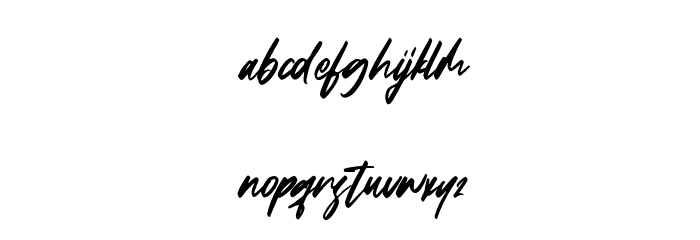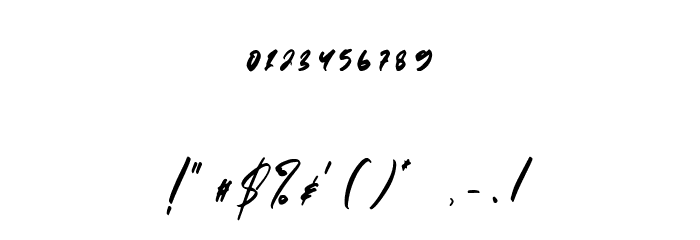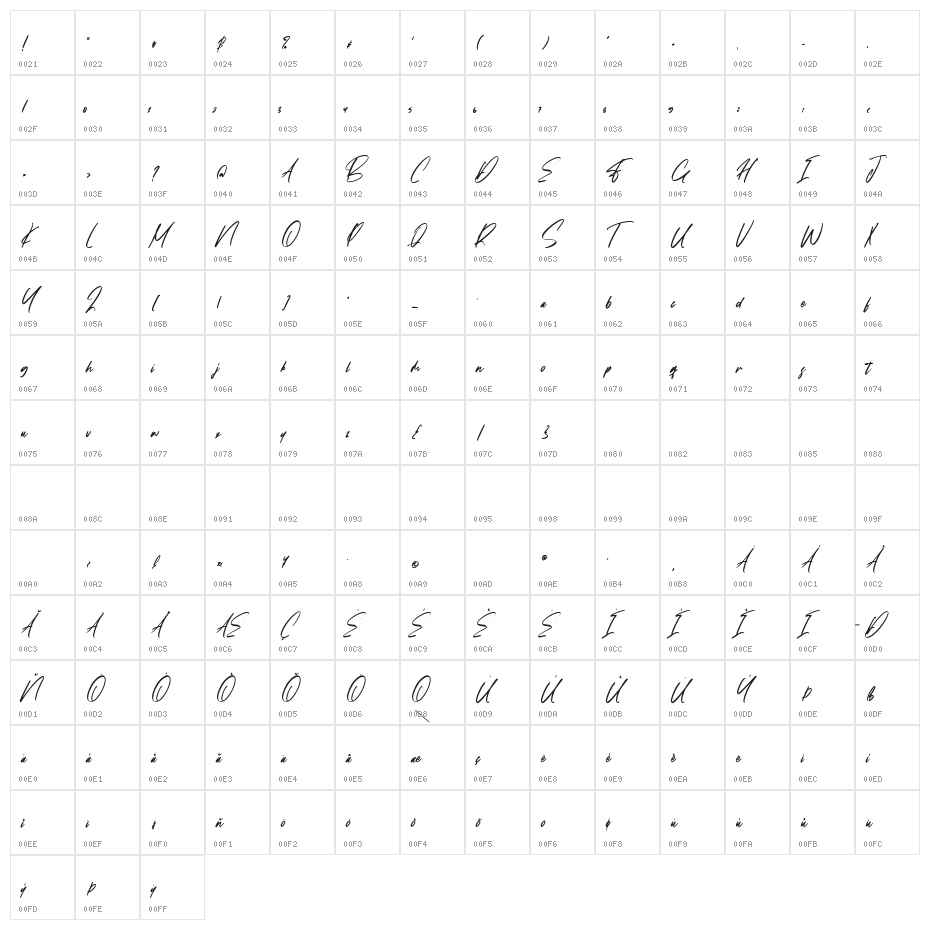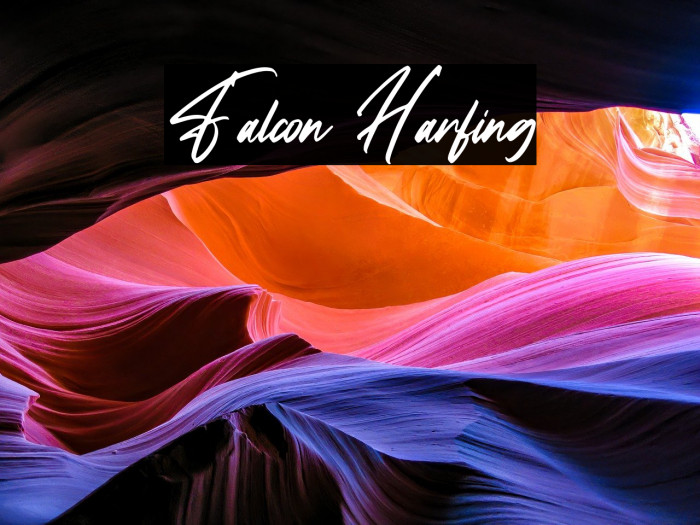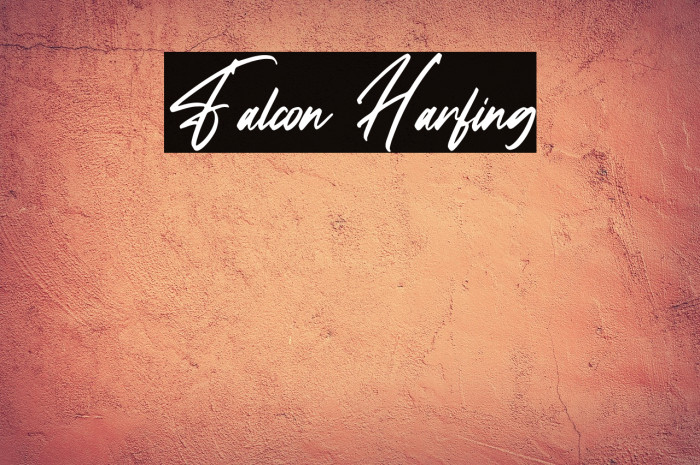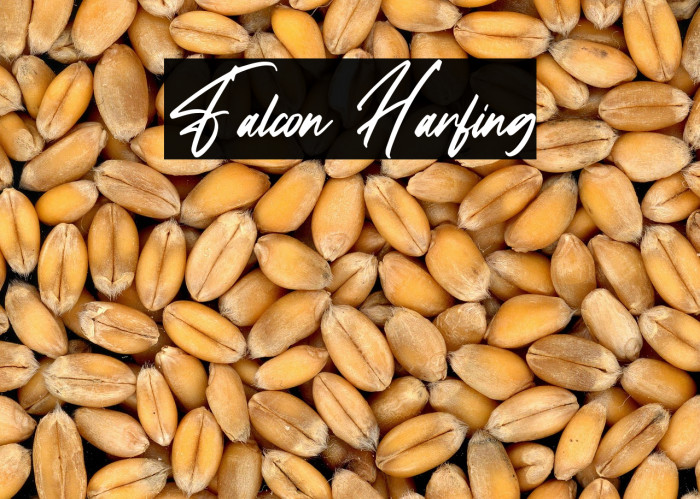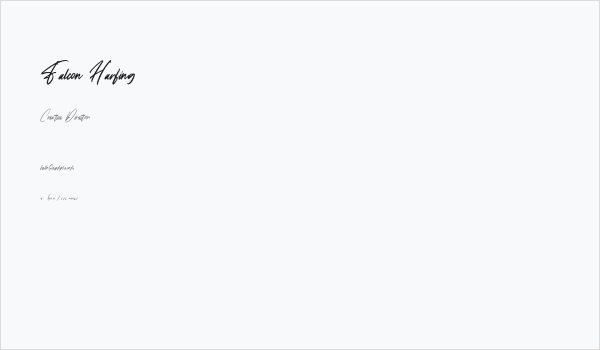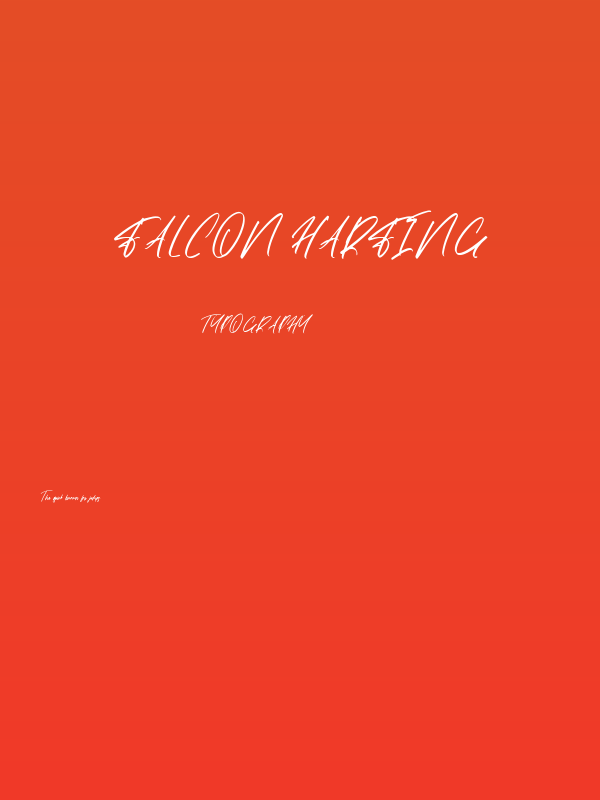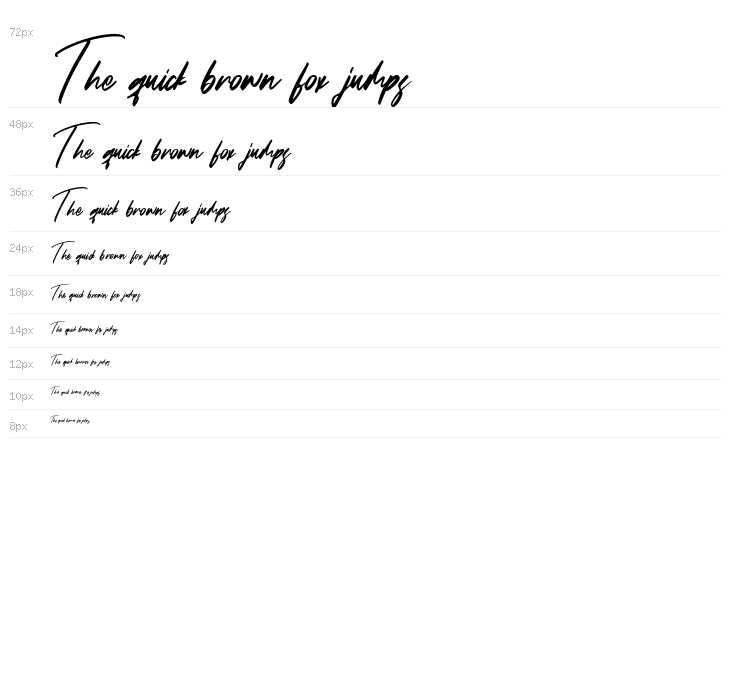
Falcon Harfing Font
This font exhibits a dynamic and fluid script style, characterized by its elegant and flowing letterforms. The strokes are smooth and connected, giving it a handwritten appearance that is both sophisticated and casual. The uppercase letters are bold and slightly slanted, while the lowercase letters maintain a consistent flow, enhancing readability. The numerals and special characters are crafted with the same attention to detail, ensuring a cohesive look throughout. This font's unique style makes it suitable for projects that require a personal touch, such as invitations, greeting cards, or branding materials.
A fluid and elegant script font with a handwritten appearance.
- Proposed Projects: Ideal for wedding invitations, personal branding, greeting cards, and artistic projects.
- Use Case: Logos, Invitations, Artistic projects